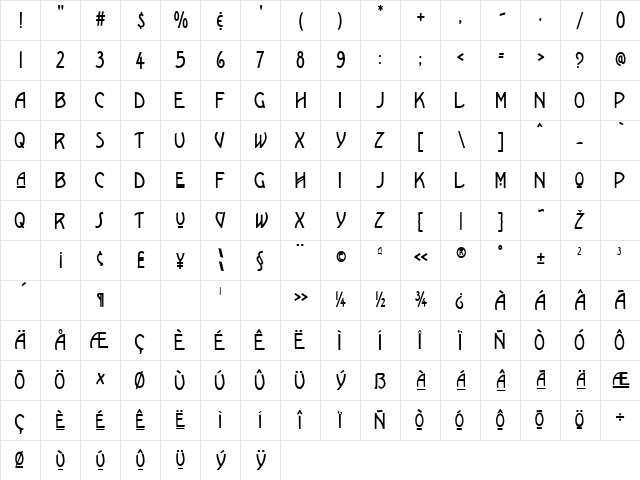
GustavStickley Regular
Design Context for GustavStickley Typeface
GustavStickley is a composed and adaptable typeface that performs quietly and consistently across a wide range of design contexts.